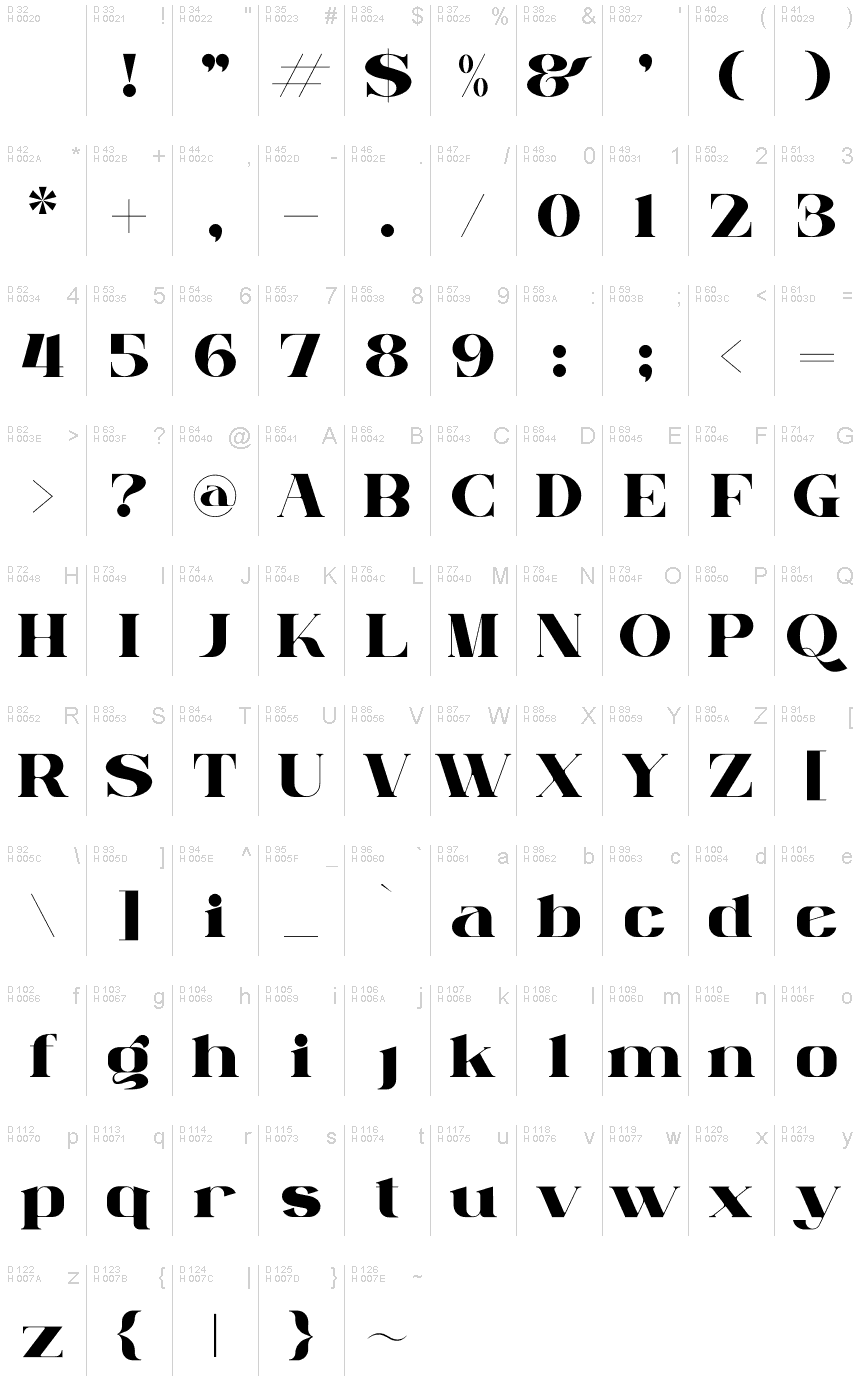
Milgnite is a bold, wide serif font with a vintage touch created by Heru Utama Putra. It's perfect for projects that require an elegant yet classic look, such as posters, book covers and wedding invitations.